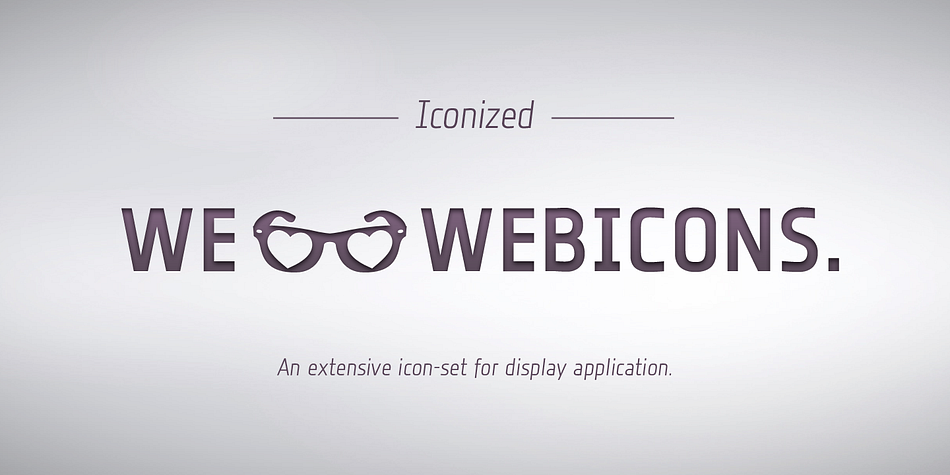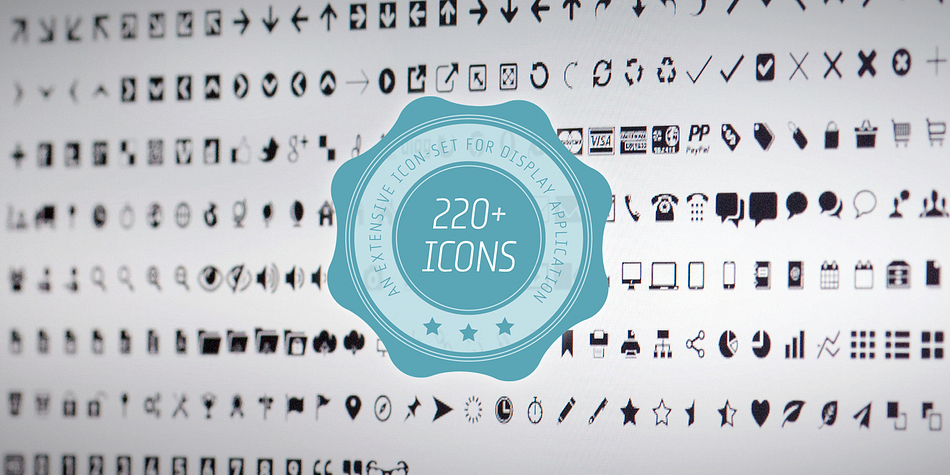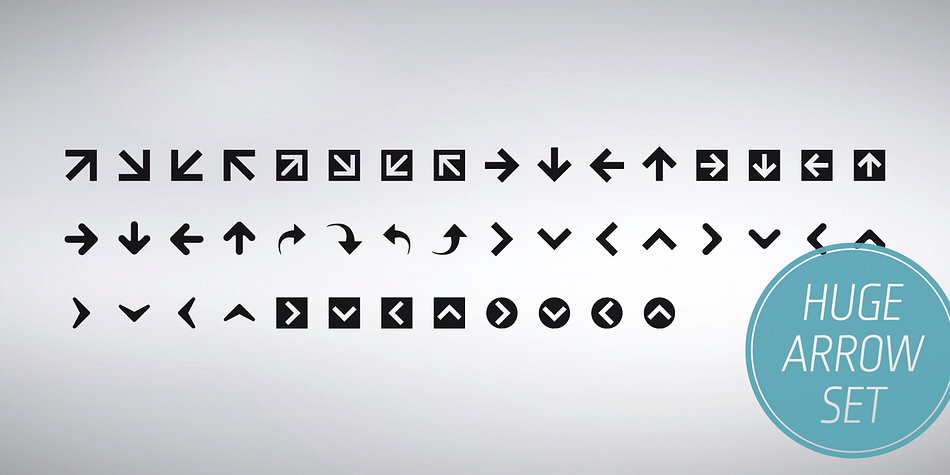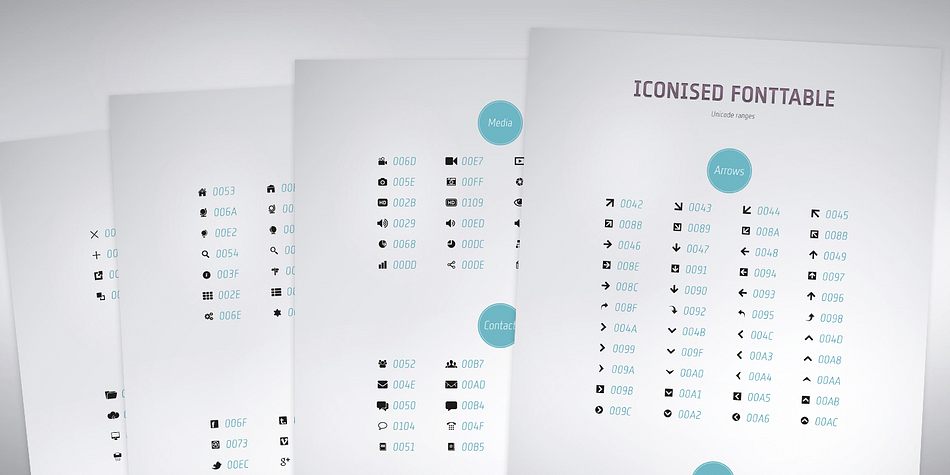
Iconized is a dingbat font family. This typeface has five styles and was published by Fonts with Love.
We love webicons!
Iconized is an extensive icon-set for display application.
The font contains more than 220 icons like arrows, filetype-,
media-, eCommerce-, network and devices-, contact-,
service navigation- and social network-icons with a whole
bunch of alternatives for each glyph.
For easy use, the package contains a well arranged glyphmap
with the needed unicode ranges.